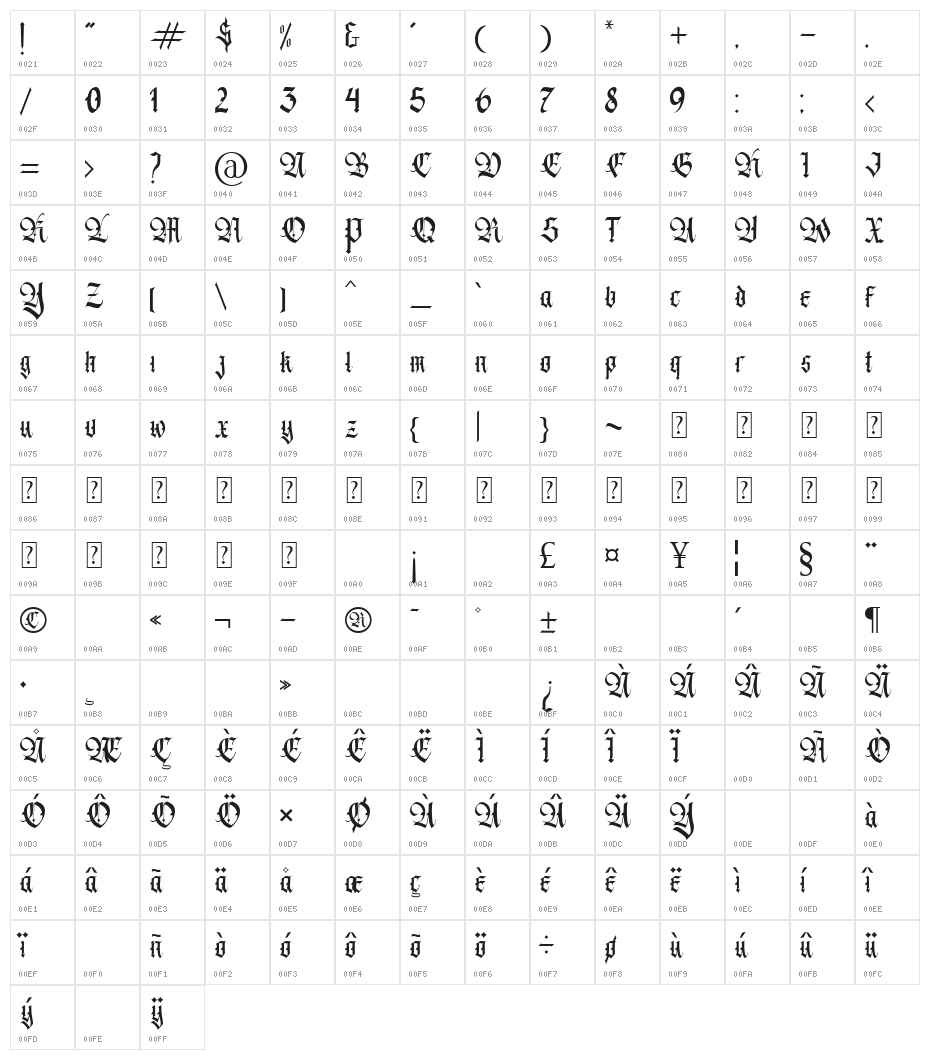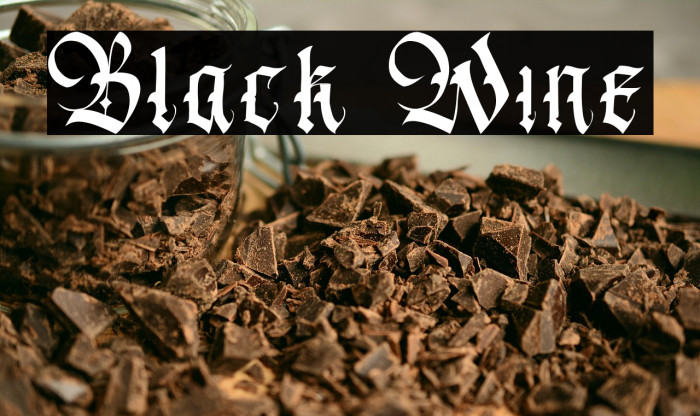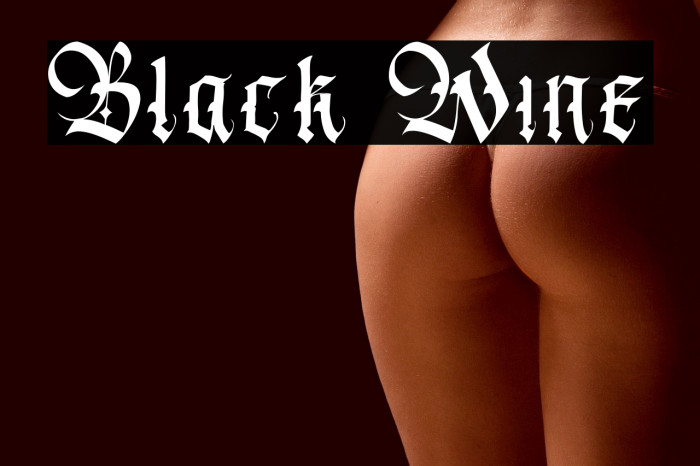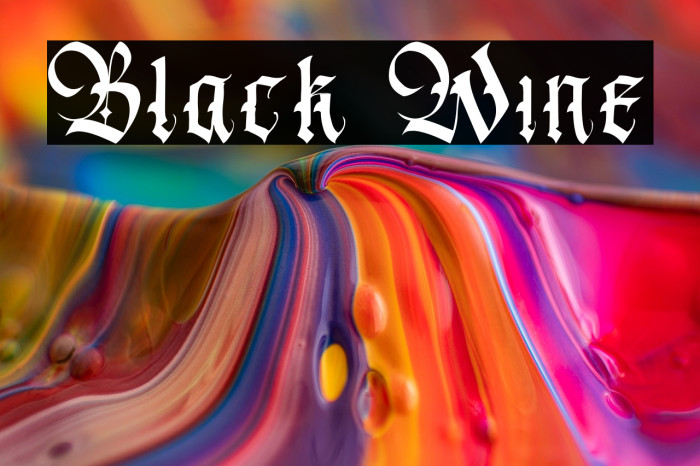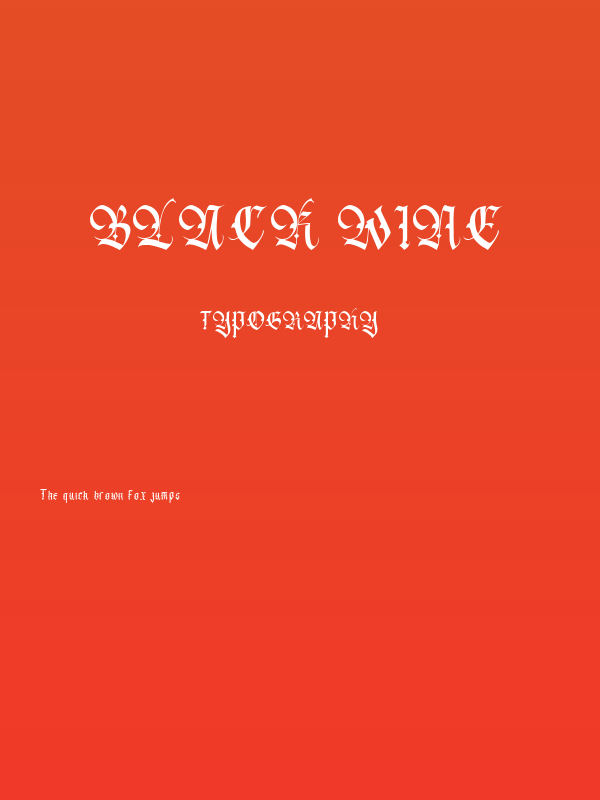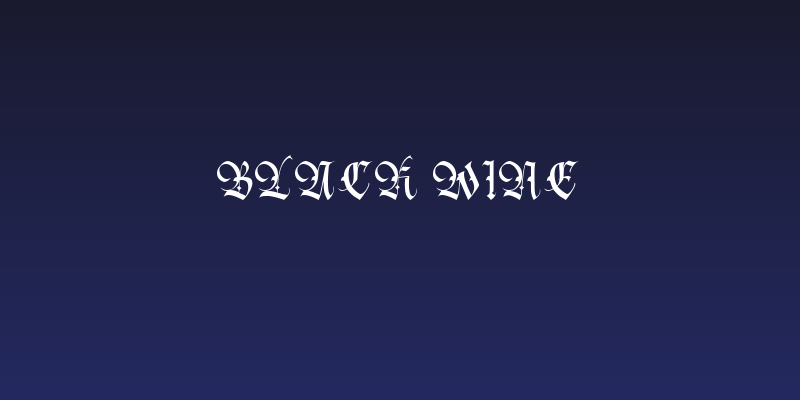
Black Wine Font
Black Wine Description
This font exhibits a classic blackletter style, characterized by its intricate and ornate letterforms. The strokes are bold and angular, with sharp edges and pointed serifs that give it a dramatic and historical appearance. The uppercase letters are particularly elaborate, featuring decorative flourishes that enhance their Gothic aesthetic. The lowercase letters maintain the same level of detail, ensuring consistency throughout the typeface. Numbers and special characters are designed to match the overall style, making this font suitable for projects that require a medieval or traditional look.
| Proposed Projects | Ideal for historical documents, medieval-themed designs, book covers, and event invitations. |